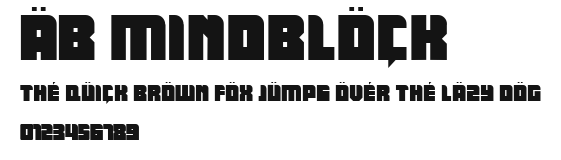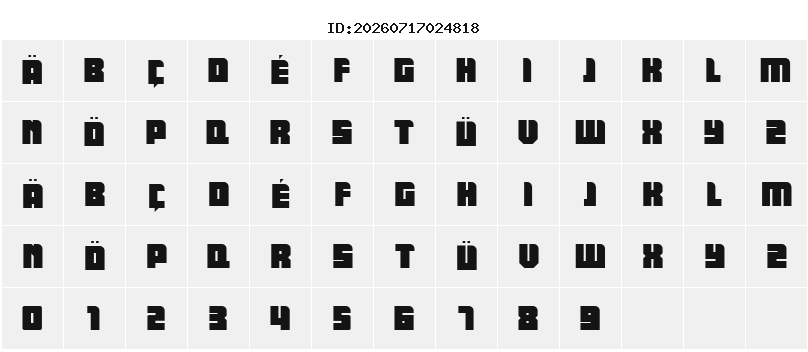
AB Mindblock Preview
About AB Mindblock.ttf
AB Mindblock.ttf is a modern, elegant sans-serif font designed for ultimate readability and visual harmony. Perfect for branding, headlines, web design, and print materials.